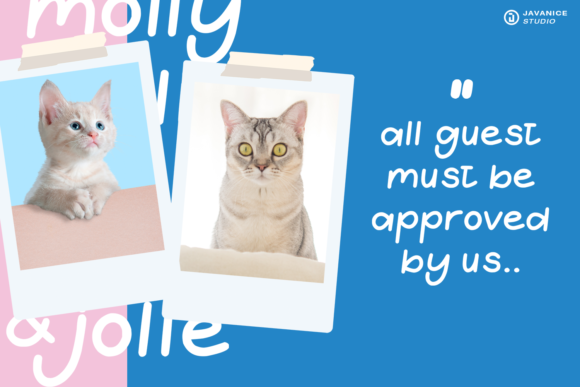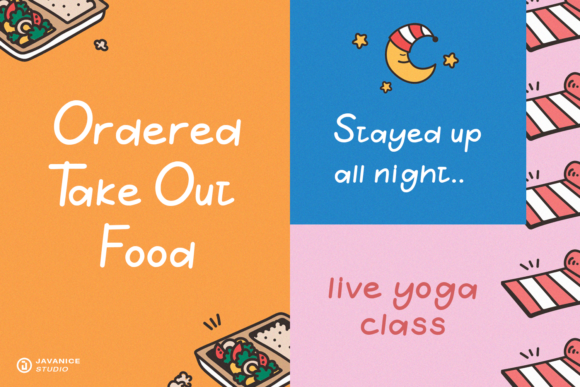
Jorell Lieven Font
db-ku.com - Script & Handwritten -- Jorell Lieven is a playful and brushed handwritten font. It is perfect for any branding project such as logos, t-shirt printing, creative products, and more. It will look extraordinary in a variety of contexts.